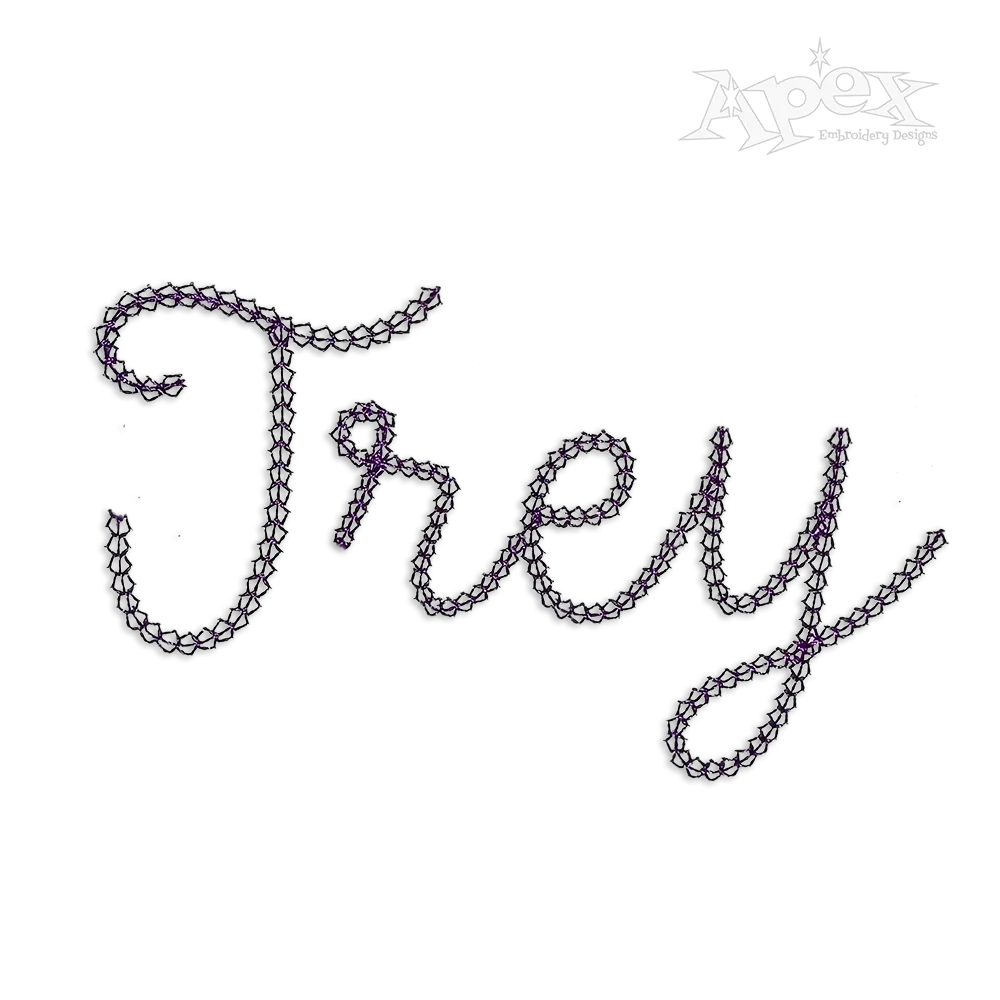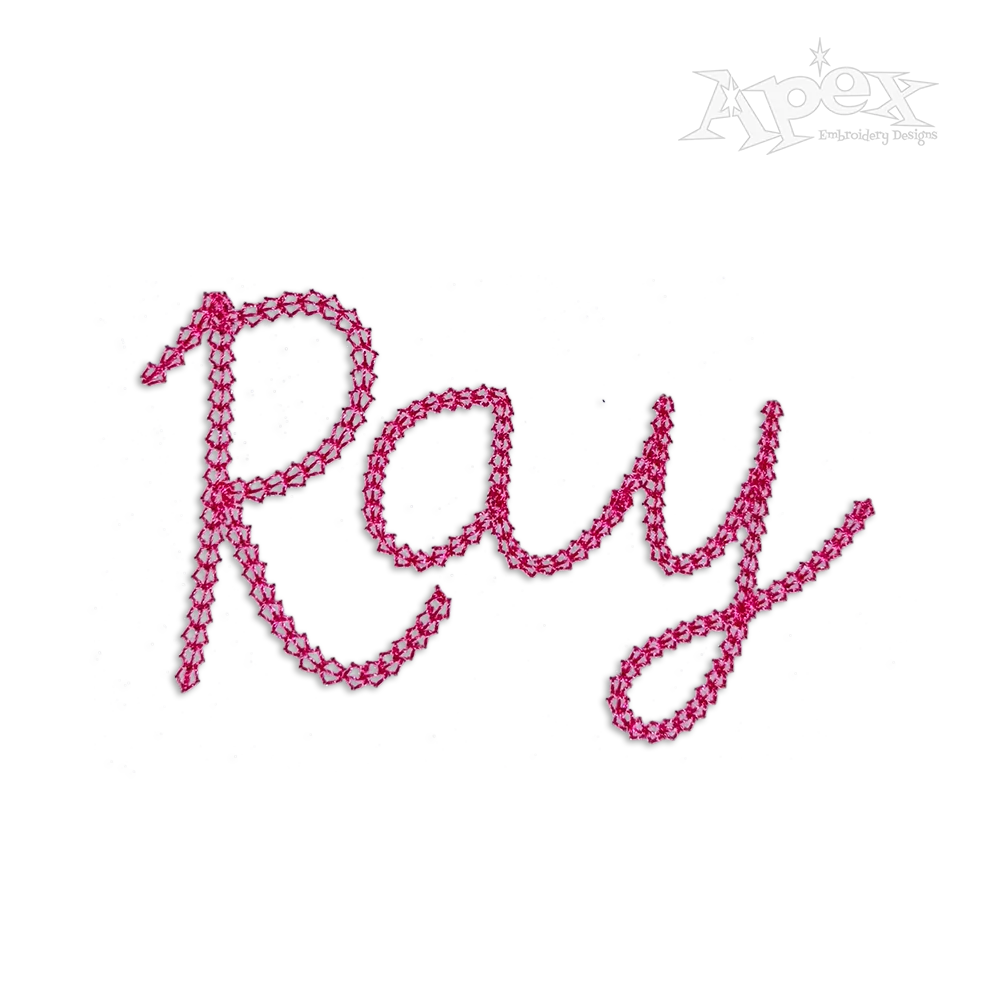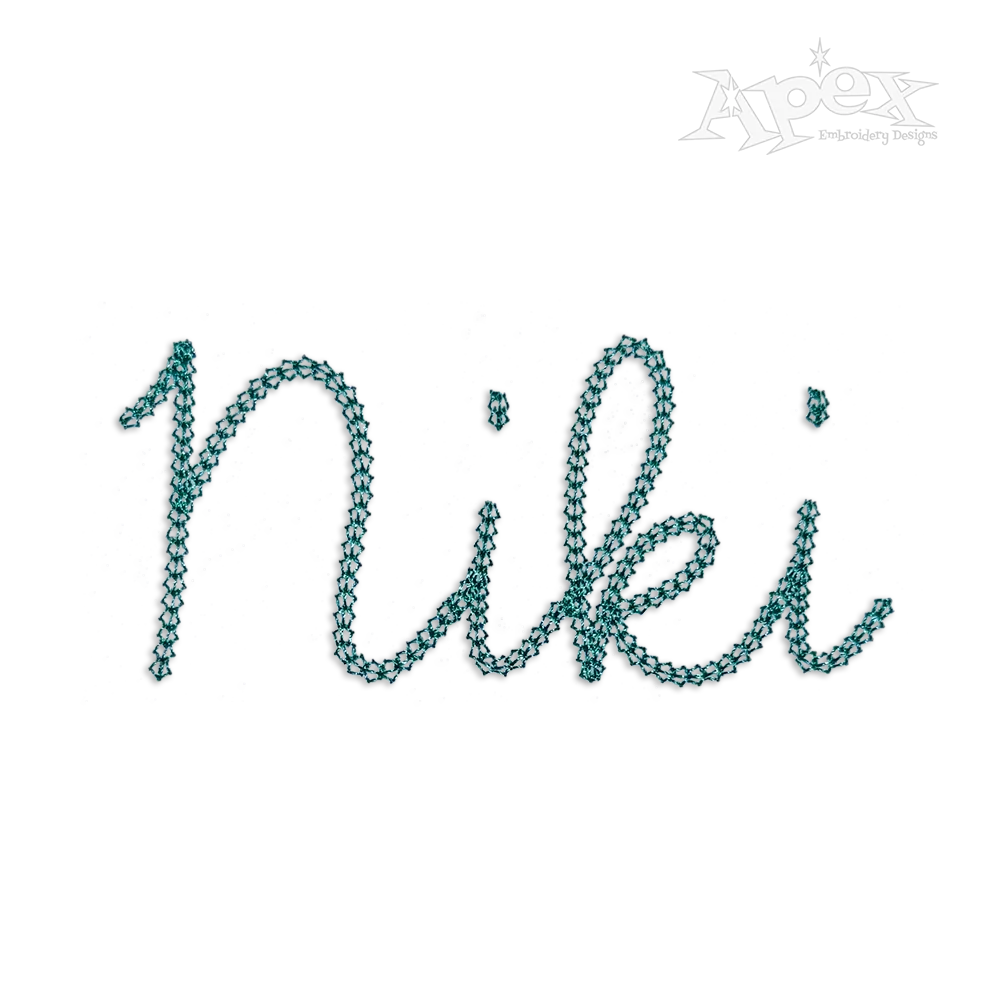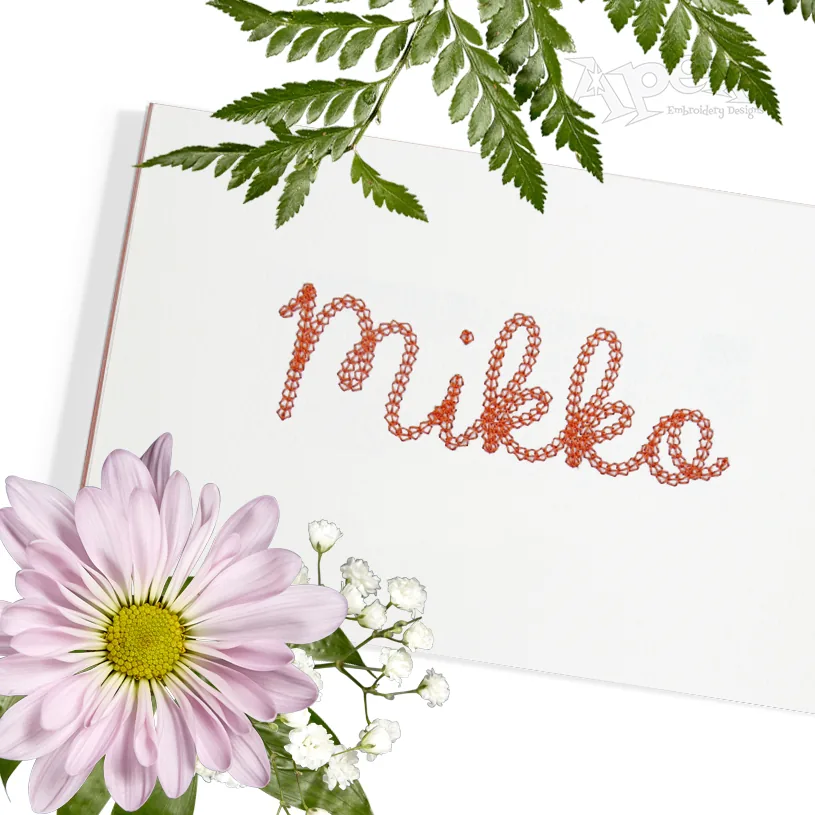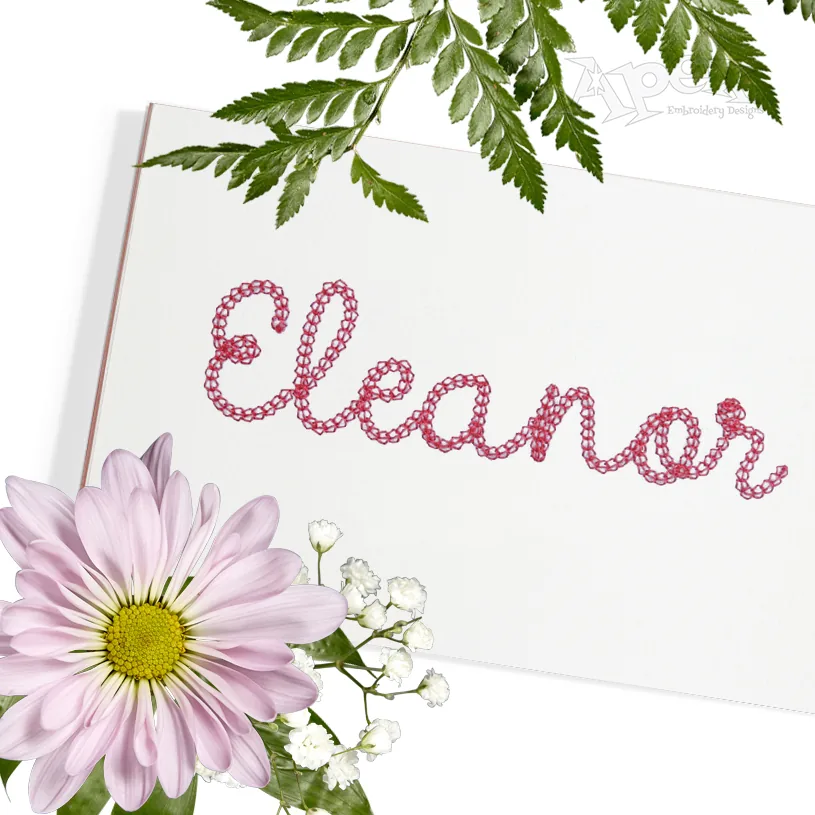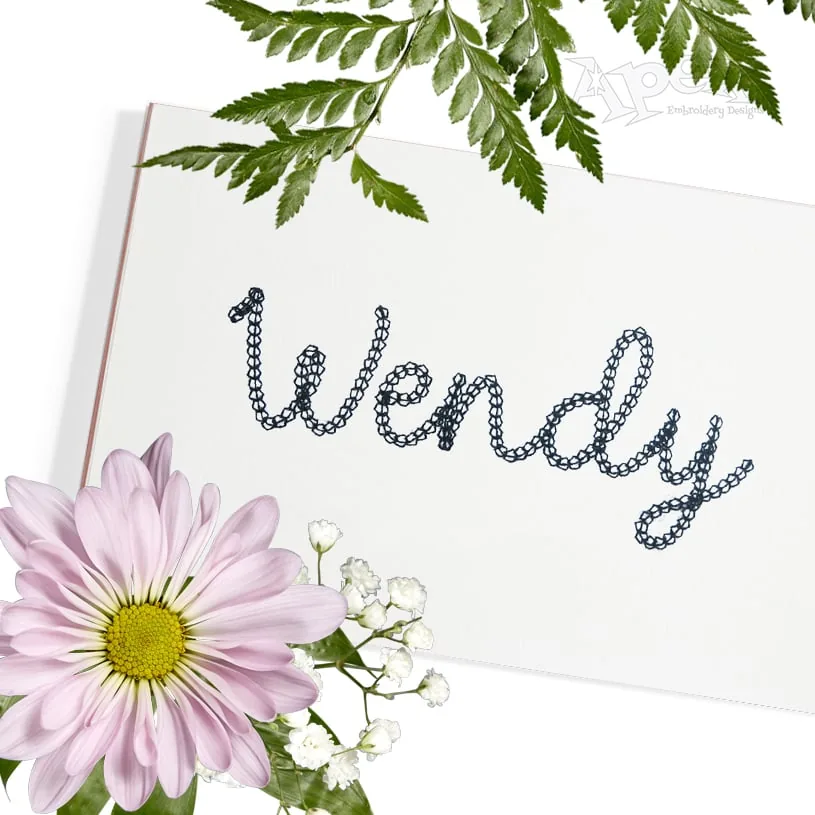
Mikko Script Chain Embroidery Font
There is an undeniable, tactile romance in classic chainstitch typography—a nostalgic rhythm evocative of vintage varsity jackets, sun-drenched coastal pennants, and lovingly stitched heirloom linens. In designing Mikko Script, we set out to capture that coveted hand-cranked, freeform cursive warmth while delivering the balance, pull-compensation, and crisp precision that modern machine embroidery demands. Each flowing letter connects with effortless grace, forming a continuous ribbon of textured thread that brings authentic retro soul and boutique charm to every stitch-out.
Mikko Script Chain Craft & Letterform Details
Replicating the loose, handcrafted texture of antique chainstitch embroidery on a computerized machine requires deliberate digitizing nuance. Rather than relying on simple, flat running lines, Mikko Script is engineered with specialized looping stroke sequences that mimic the loft, dimension, and interlocking curves of a traditional manual chainstitch machine.
We paid meticulous attention to the junctions where capital flourishes transition into lowercase connectors, ensuring the baseline flows naturally without awkward stops or unsightly thread clumps. Underlay stitching is tailored to lift the visible looping threads off the fabric surface, preserving that signature textured puff without pulling or distorting lightweight linens and soft knits. The result is a spirited, artisan script that stitches smoothly, feels wonderfully tactile to the touch, and infuses your bespoke embroidery projects with authentic, vintage character.